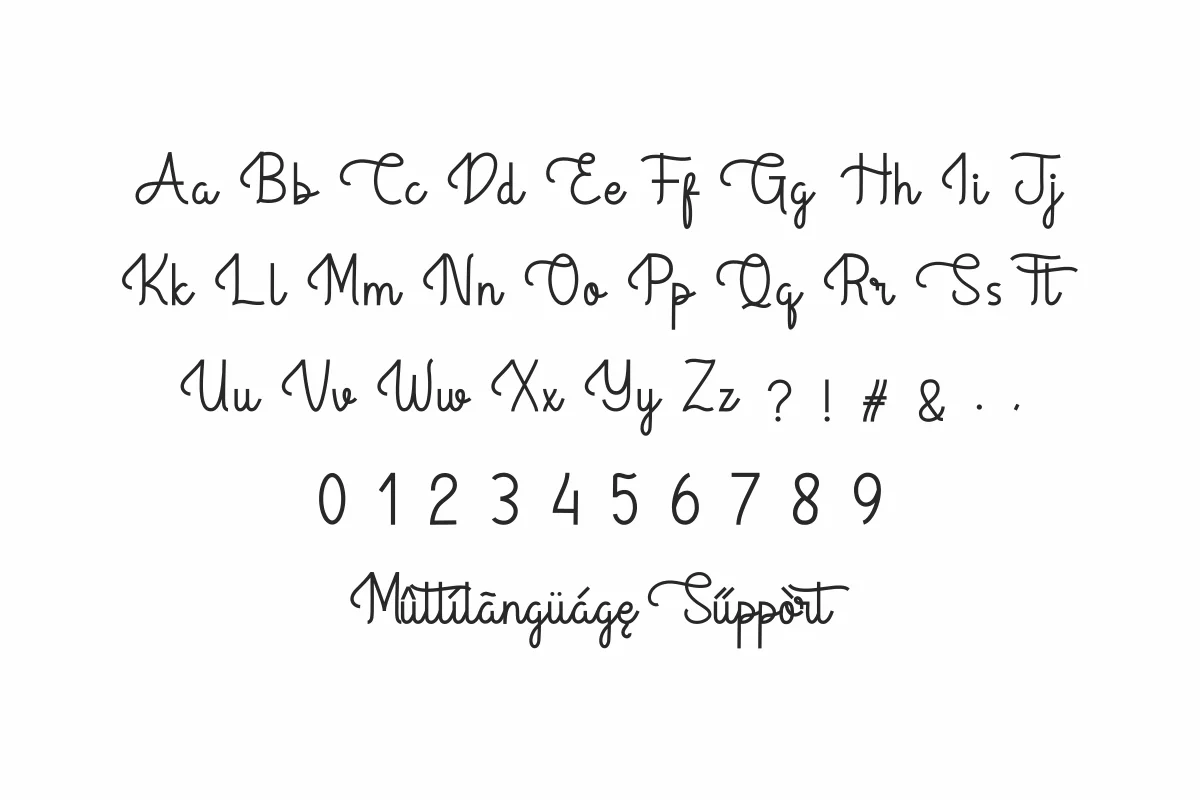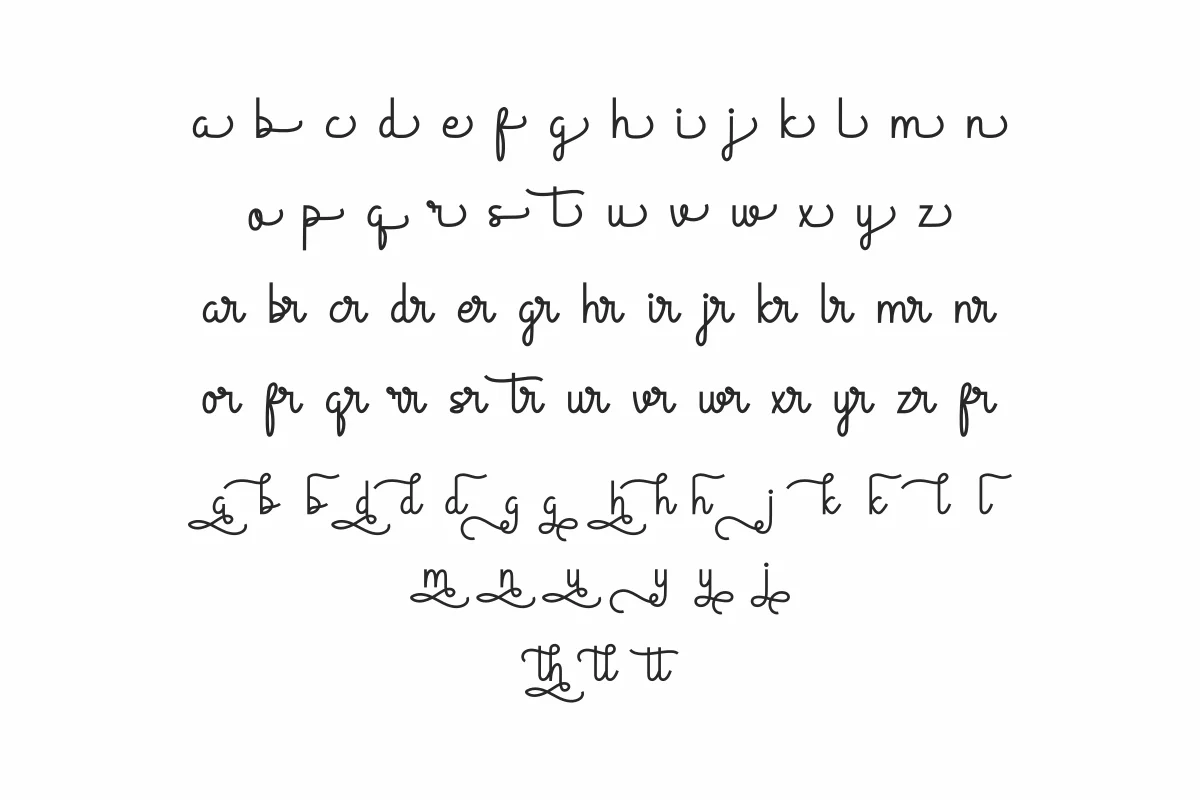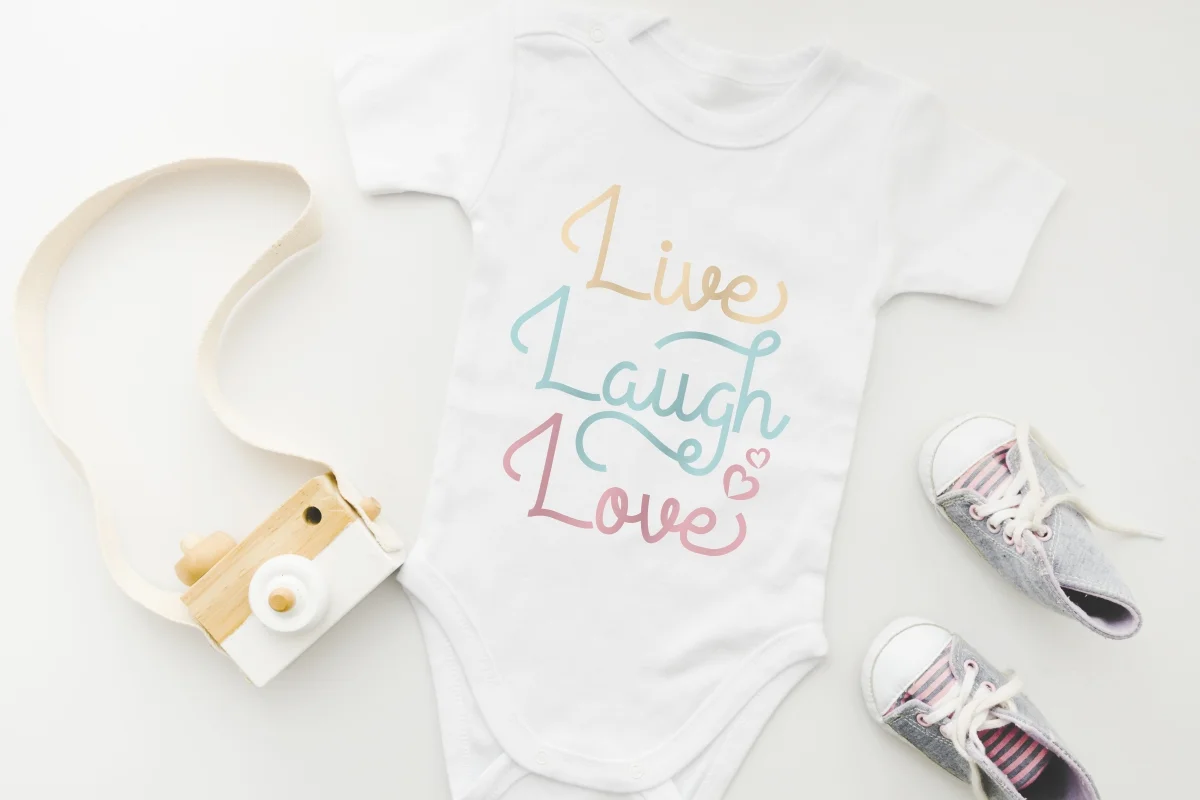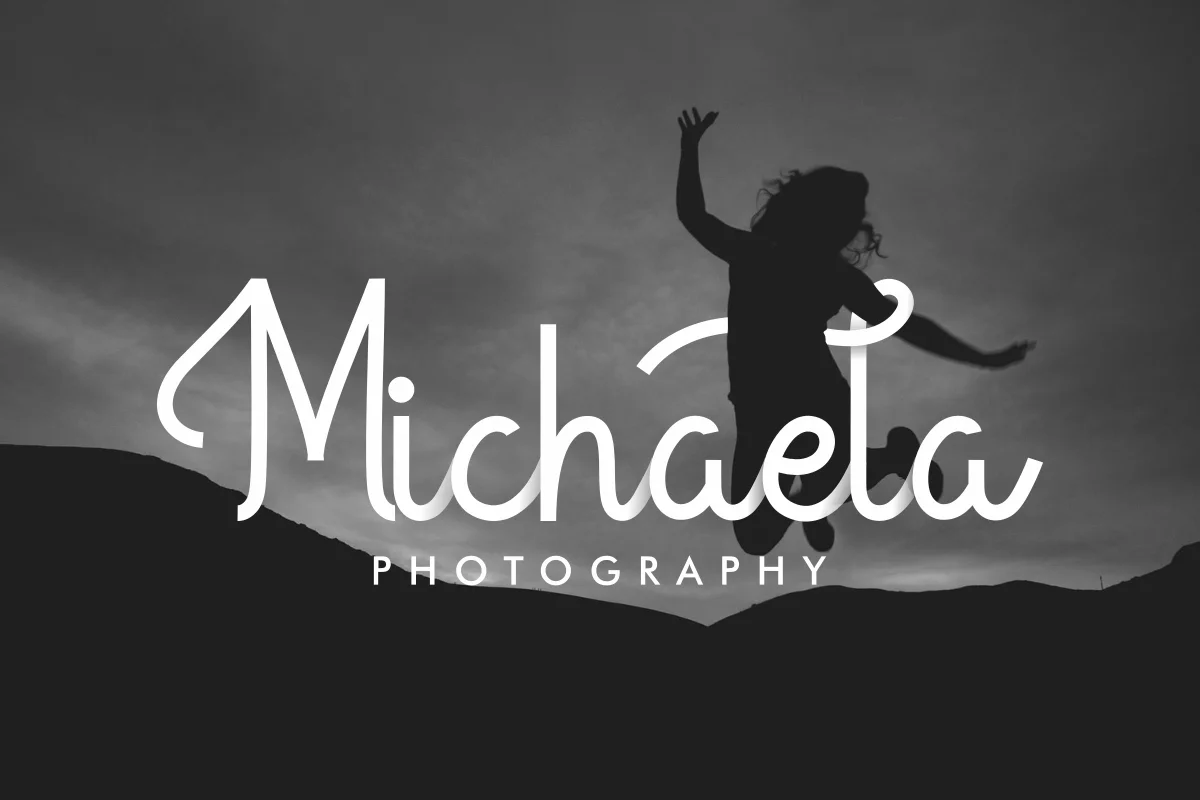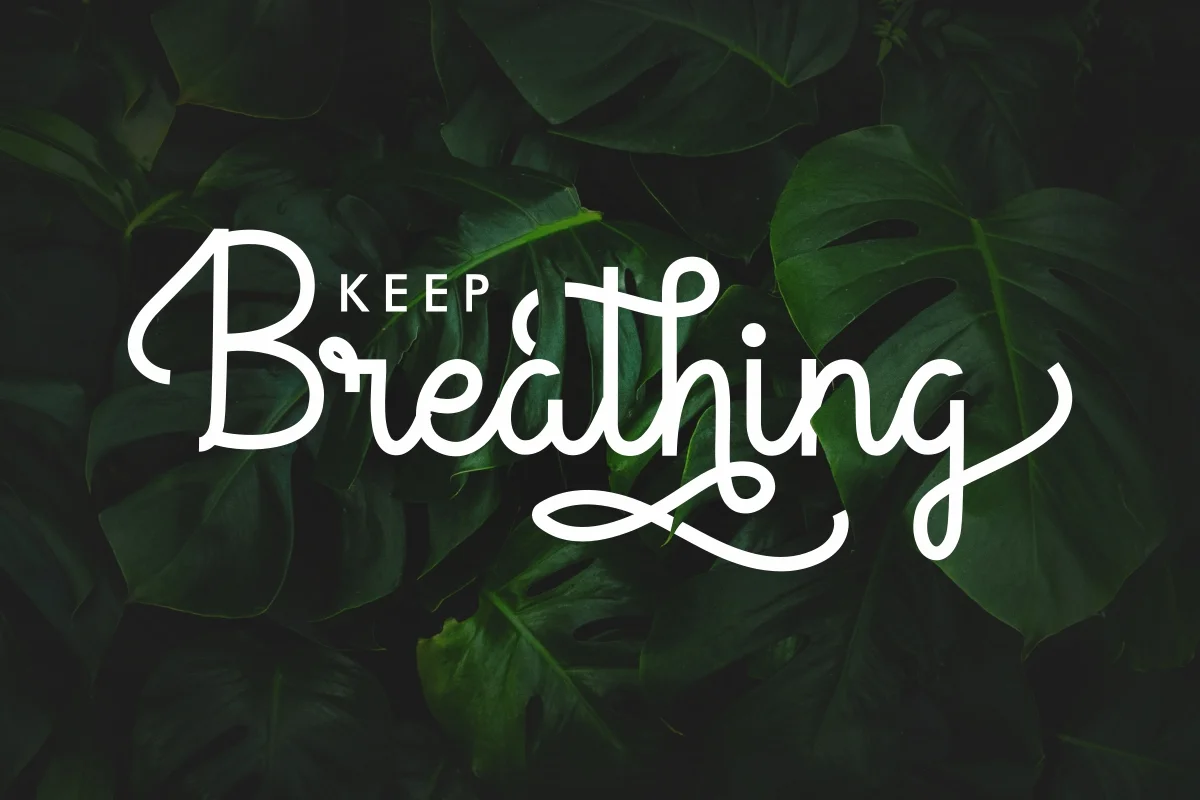
Granadile Font is a display handwriting font with a unique style and many alternates characters. Originally made by NihStudio Font Designers : Widi and Suci. On the package you will get :
Handcrafted here in our Studio , Indonesia. Granadile will be great for any projects (require extended license) including : branding, logo, stationery, business card, signage, flyer, brochure etc.